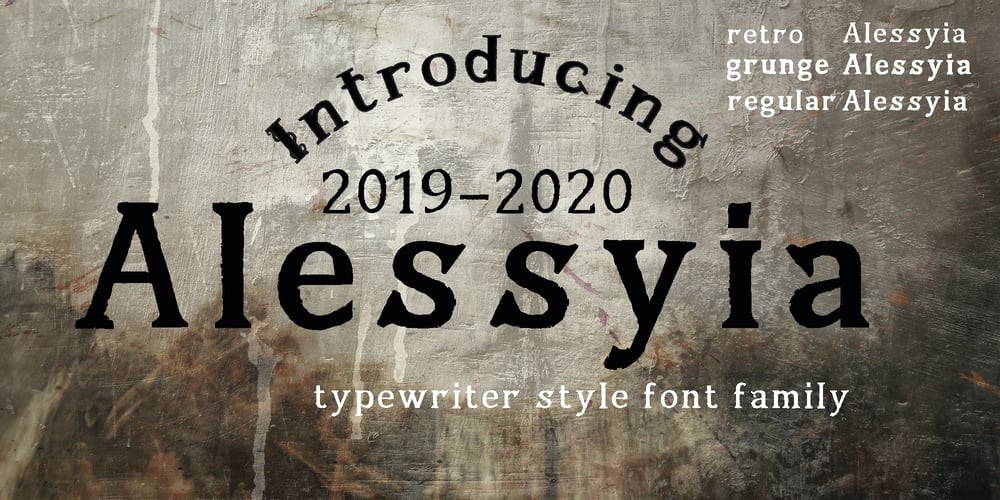
Alessyia Font Family was designed by Luiza Gasparyan and published by Umbra95. Alessyia contains 3 styles and family package options. Alessyia is a classic style typeface font. This font has classic but at the same time a fresh look. “Alessia family” includes 3 font types:Regular ( Classic and elegant with straight geometric lines )Grunge ( Dirty and messy )Retro ( Hand drawn brush font with an uneven texture )